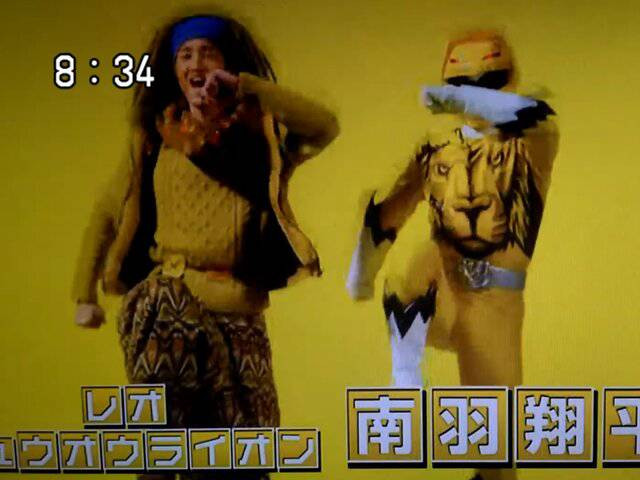
This is on FO-KOWA Clock Font is a Japanese TV show that's in 80's & 90's and the Early 2000's That's it! on KineMaster this Morning showits "Fo-Kowa" there are a lot of Japanese fonts that are used by many tv channels (TV TOKYO, tv asahi, and NHK) Click the dropbox link and it will give you all the Japanese tv clock fonts that were used in the late 80's to mid 2000's